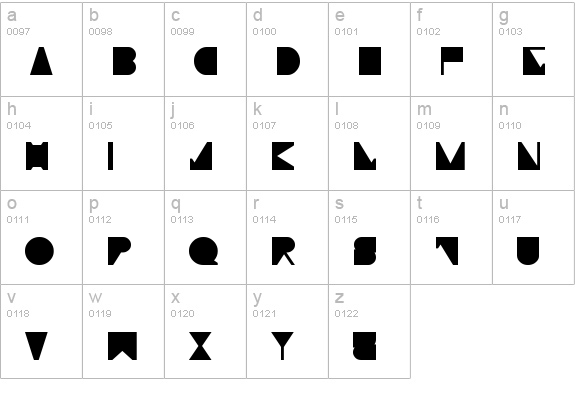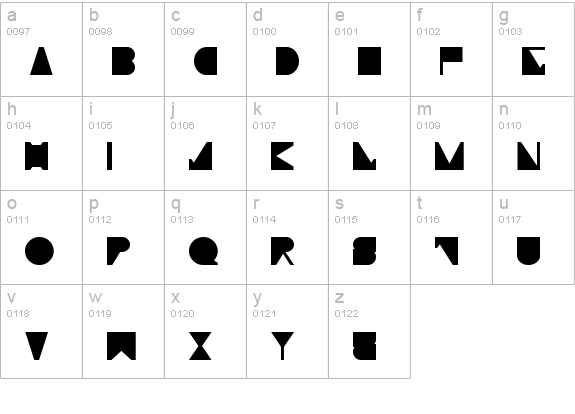
Moiser techno Font Details
Introducing Moiser Techno Font, a cutting-edge typeface that combines modern aesthetics with a touch of futuristic flair. This font is perfect for those seeking a bold and sleek design to elevate their projects to the next level. Moiser Techno Font features clean lines and sharp edges that exude a sense of precision and sophistication. Its geometric shapes and precise spacing create a visually striking impact, making it ideal for various design applications, including logo designs, website headers, posters, and more. One of the most remarkable aspects of Moiser Techno Font is that it is free! Yes, you heard it right. This remarkable font is freely available to download at FontsMarket.com, a trusted source for high-quality fonts. Now you can effortlessly enhance your creative endeavors without breaking the bank. With Moiser Techno Font, your designs will capture attention and leave a lasting impression. Its versatility allows it to adapt to various styles and themes, whether you're going for a futuristic look or a sleek and minimalistic approach. The possibilities are endless. So why wait? Immerse yourself in the world of Moiser Techno Font, where cutting-edge design meets affordability. Download this font today from FontsMarket.com, and unleash your creativity like never before. With Moiser Techno Font, your projects are bound to stand out from the crowd.